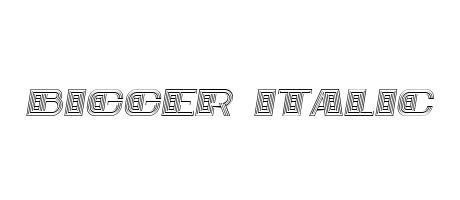
Bigger
Bigger Italic: A bold, geometric sans-serif font with a distinct layered, multi-lined effect. Each letter is composed of parallel lines creating a three-dimensional, almost embossed appearance. The italic style adds a dynamic slant, enhancing the font's modern and slightly aggressive feel. It's ideal for headlines and branding needing a strong, graphic impact.
Vladimir Nikolic